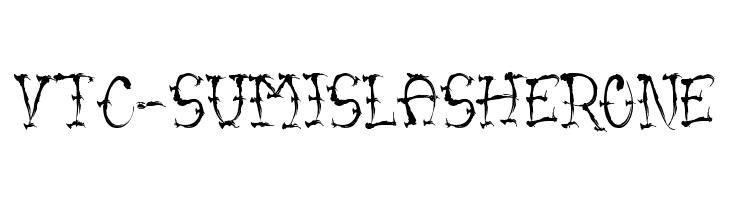
A bold, thorny, and gothic-inspired decorative font with sharp, irregular strokes.
A bold, jagged, and italicized font with thorn-like details and an aggressive style.
An edgy, thorn-like font with sharp, irregular strokes.
A decorative and artistic font with intricate, swirling lines and sharp edges.